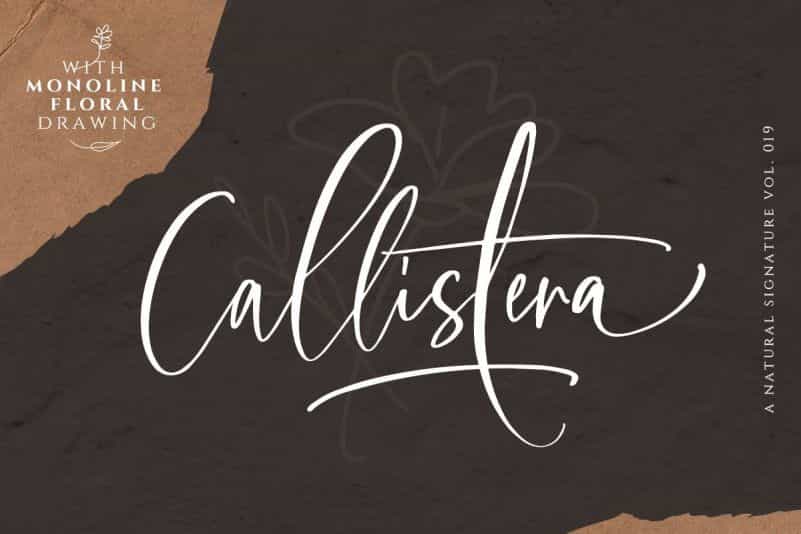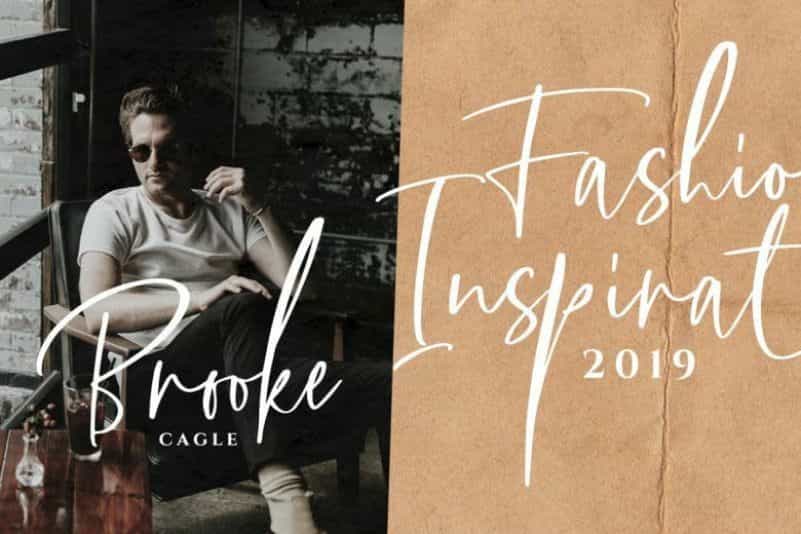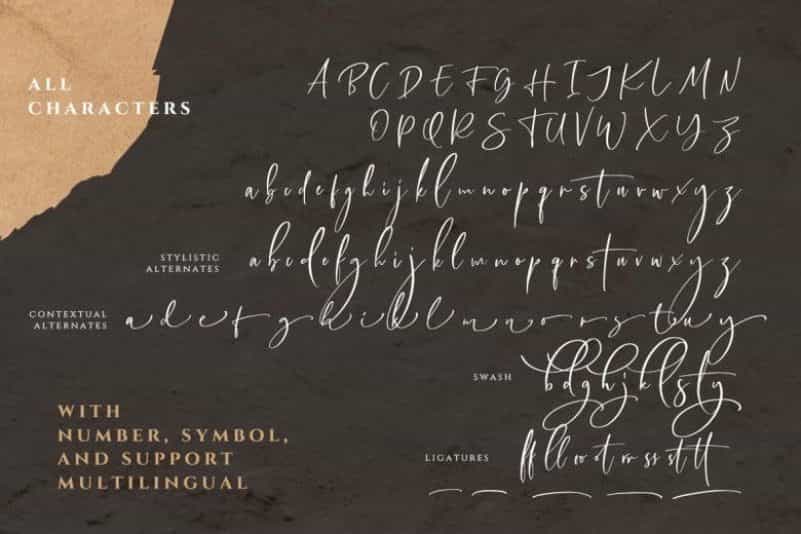
Callistera Font is a modern script font. This beautiful handwritten designed script font has become a strong but classy sophiscated look. can be used for any purpose. This font is design and shared by Sarid Ezra. Callistera Signature Script is built as a signature design, also a natural also expressive signature includes; Uppercase, Lowercase, Symbols, multilingual support, and inspiration; providing ligatures, alternates, and swashes.. It also works well for logo branding, beautiful fashion design, suitable for wedding invitation, or handwritten quote.